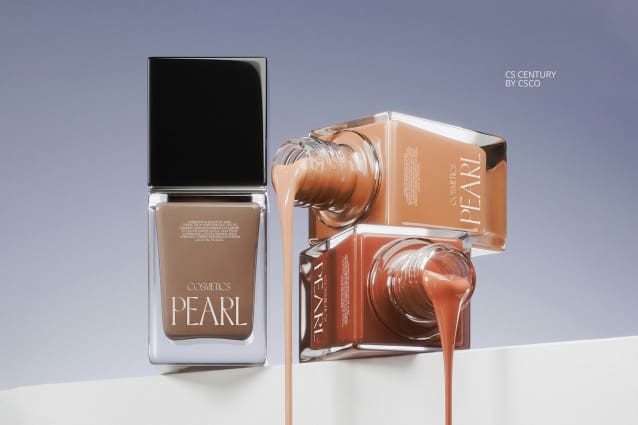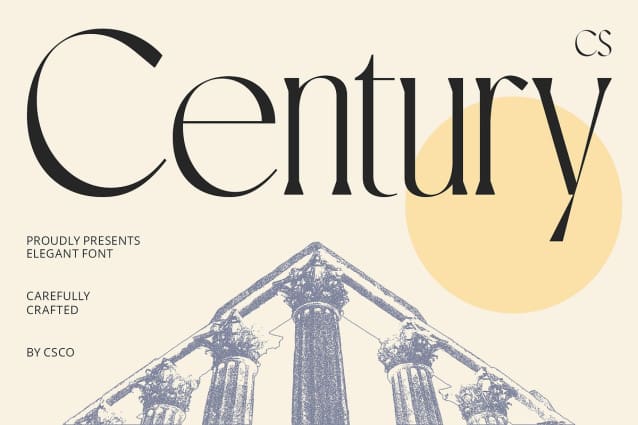
CS Century Font
CS Century Font is a modern serif font that seamlessly blends classic serif elements with contemporary design, creating a font that exudes sophistication and style. Its elegant letterforms feature refined serif details balanced with modern aesthetics, making it a perfect choice for professional and polished design projects.
Perfect for Professional Design Projects This font is ideal for corporate branding, editorial layouts, and formal presentations, where a refined and polished look is essential. CS Century’s sophisticated style elevates any professional setting, ensuring that your designs make a lasting impression with their timeless elegance.
Versatile and Polished Whether used for business cards, company logos, or high-end marketing materials, CS Century offers versatility in professional contexts. Its combination of traditional serif refinement with modern clarity makes it a standout choice for adding a touch of elegance and professionalism to your designs.
Ideal for Corporate and Formal Applications CS Century shines in formal and corporate applications, providing a sleek and stylish look that communicates both authority and sophistication. Its modern yet classic design makes it an excellent choice for any project that requires a professional and polished appearance.